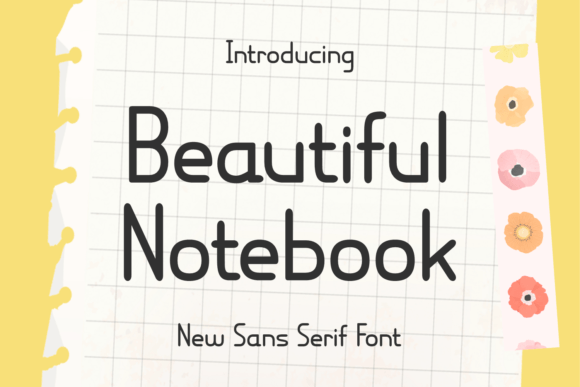
Introducing the Beautiful Notebook Font: A Masterpiece of Minimalist Elegance
In the world of typography, a beautiful notebook font can make all the difference in creating visually stunning designs. Whether you’re a designer, artist, or simply a DIY enthusiast, having the right font can elevate your project from ordinary to extraordinary. Today, we’re excited to introduce our Sans Serif typeface, a masterpiece that impeccably fuses the minimalist elegance of handmade accents with a refreshingly alternative vibe.
A Font that Speaks to You
Our Beautiful Notebook Font is designed to make a statement in an authentic apparel design, make your book covers pop, or give your sticker notes and greeting cards an irresistible flair. With its clean and attention-grabbing style, this font collection offers a variety of tailored styles to suit your creative needs. Whether you’re customizing back-to-school notes, simple planners, or making trendy fan shirts, our font has got you covered.
Key Features of the Beautiful Notebook Font
- Multilingual Support: Our Sans Serif Font is designed to support multiple languages, making it a perfect choice for global brands and designers.
- Handmade Accents: The font features handmade accents that add a touch of elegance and sophistication to your designs.
- Alternative Vibe: The font’s alternative vibe makes it perfect for designers who want to create unique and eye-catching designs.
- Round and Smooth Characters: The font features round and smooth characters that bring your quotes to life with a seamless blend of traditional and contemporary typographies.
Endless Design Possibilities
Our Beautiful Notebook Font is ideal for creating clean, attention-grabbing brand elements or even to embolden a magazine layout or packaging. The font’s versatility makes it perfect for various design projects, including:
- Apparel Design: Create stunning t-shirts, hoodies, and other apparel with our font.
- Book Covers: Make your book covers pop with our eye-catching font.
- Sticker Notes and Greeting Cards: Add an irresistible flair to your sticker notes and greeting cards.
- Magazine Layouts and Packaging: Use our font to create clean and attention-grabbing magazine layouts and packaging.
The Art of Typography: A Seamless Blend of Traditional and Contemporary Styles
Our Beautiful Notebook Font is designed to showcase round, smooth characters that bring your quotes to life with a seamless blend of traditional and contemporary typographies. The font’s unique style makes it perfect for designers who want to create visually stunning designs that communicate with style.
This is Not Just a Font, It’s a Creative Partner for Your Vision
Our Beautiful Notebook Font is more than just a font – it’s a creative partner that helps you bring your vision to life. With its unique style and versatility, our font is perfect for designers, artists, and DIY enthusiasts who want to create stunning designs that make a statement.
Beautiful Notebook Font Gallery
Take a look at our font gallery to see our Beautiful Notebook Font in action. From apparel designs to book covers, our font has been used in a variety of creative projects.
What Our Customers Say
Don’t just take our word for it – our customers rave about our Beautiful Notebook Font. Here’s what they have to say:
“I’ve been searching for a font like this for ages! The Beautiful Notebook Font is perfect for my designs – it’s elegant, modern, and versatile.”
Designer, Emily
“I’ve used several fonts in the past, but none have impressed me like the Beautiful Notebook Font. It’s a game-changer for any designer!”
In conclusion, our Beautiful Notebook Font is a masterpiece of minimalist elegance and alternative style. With its unique features, versatility, and creative possibilities, our font is perfect for designers, artists, and DIY enthusiasts who want to create visually stunning designs that make a statement. Download our font today and fire up your creativity!